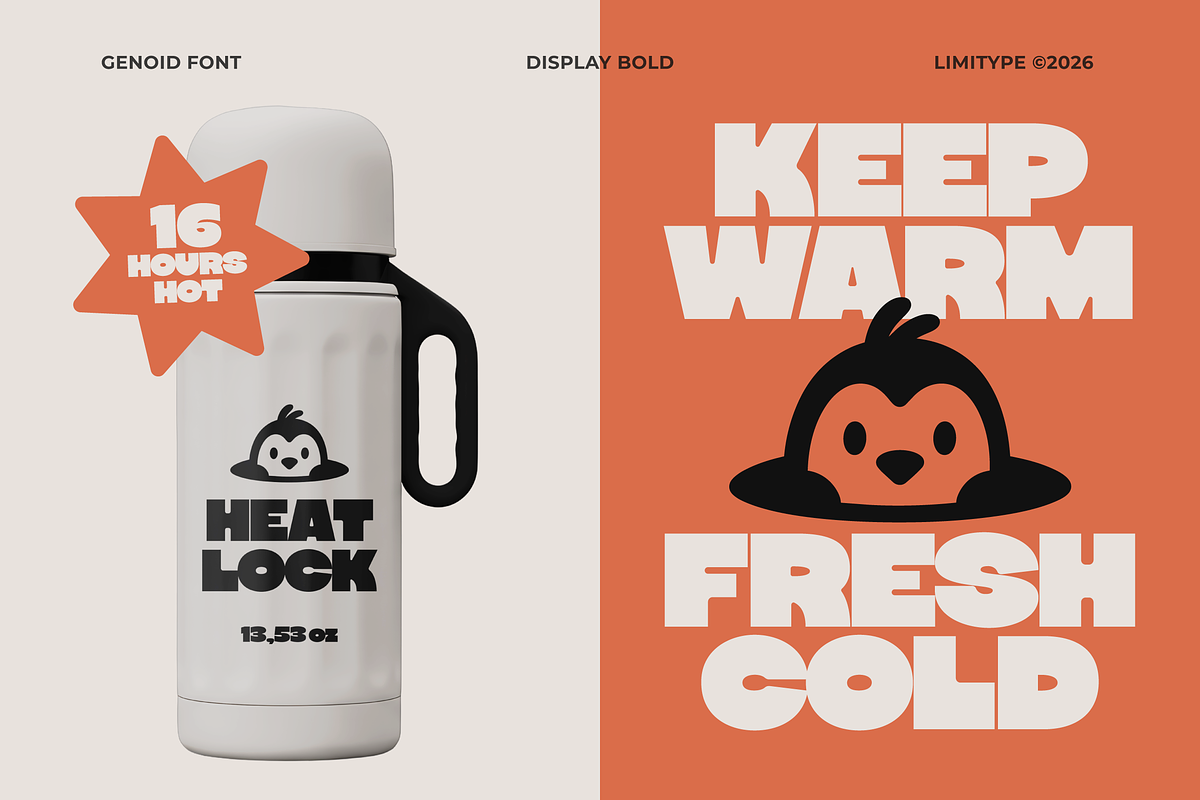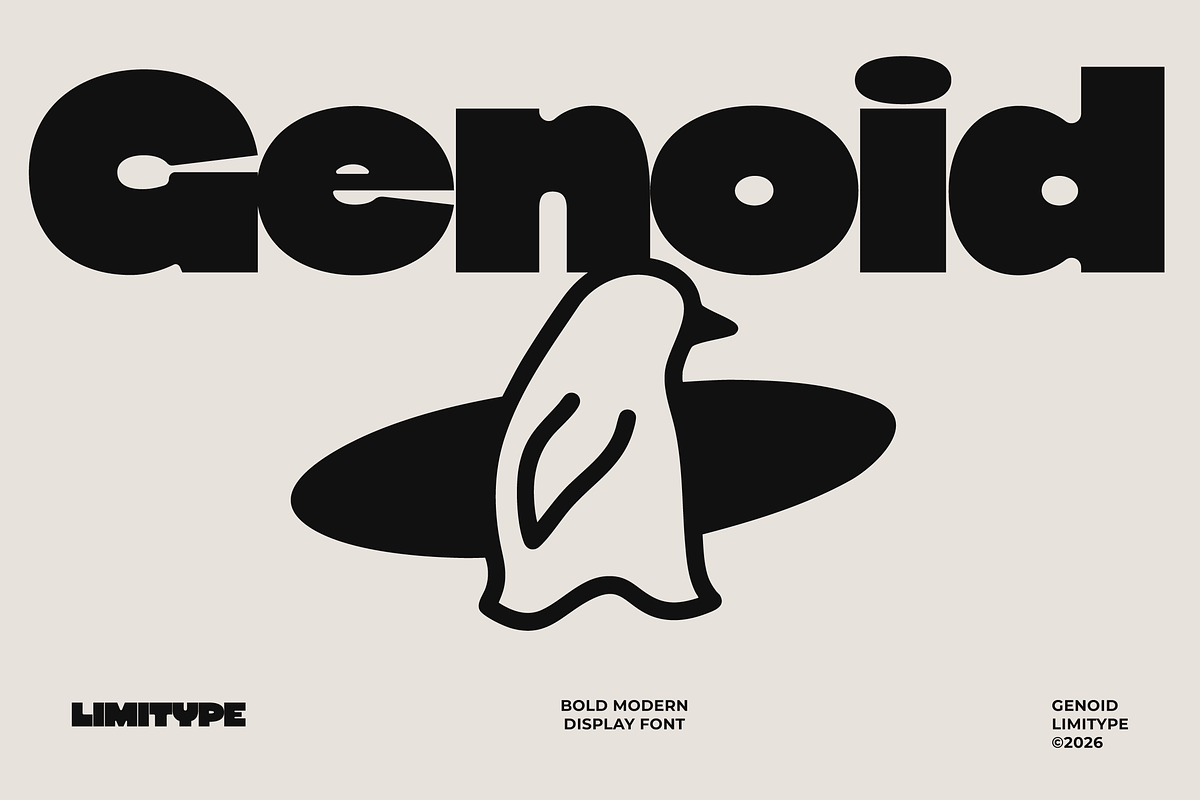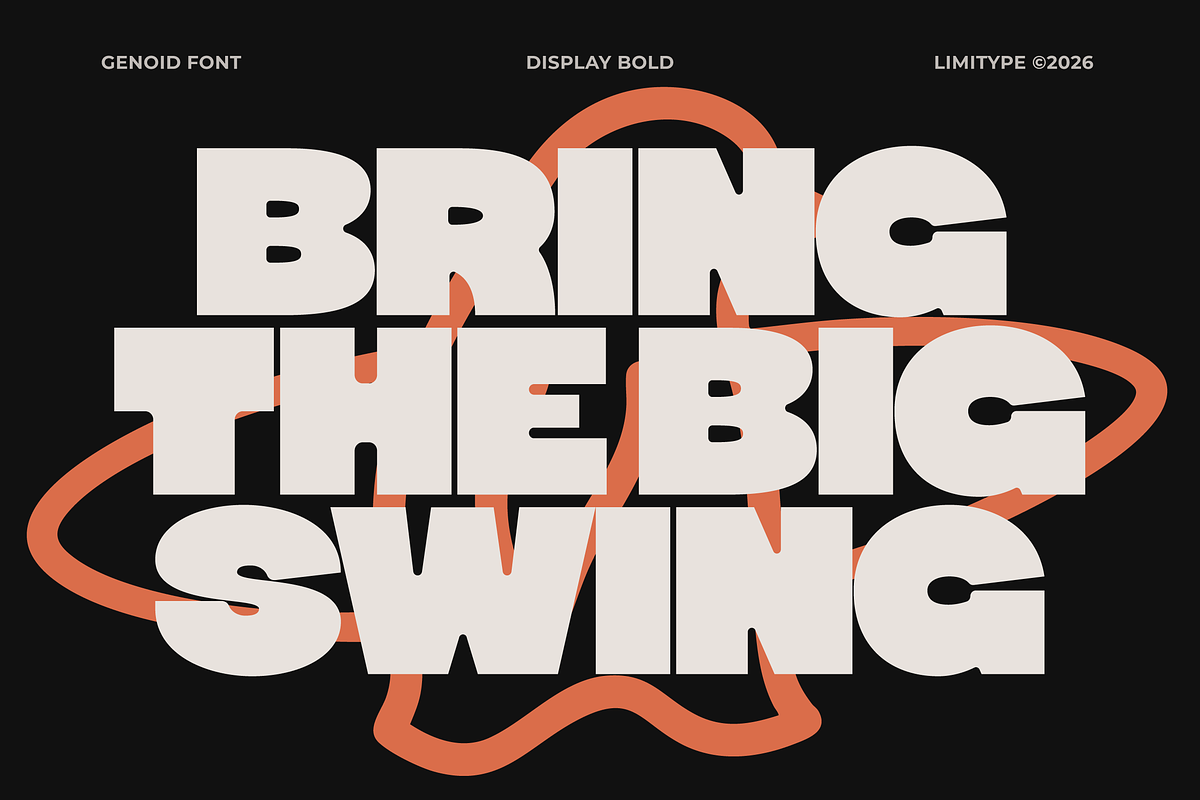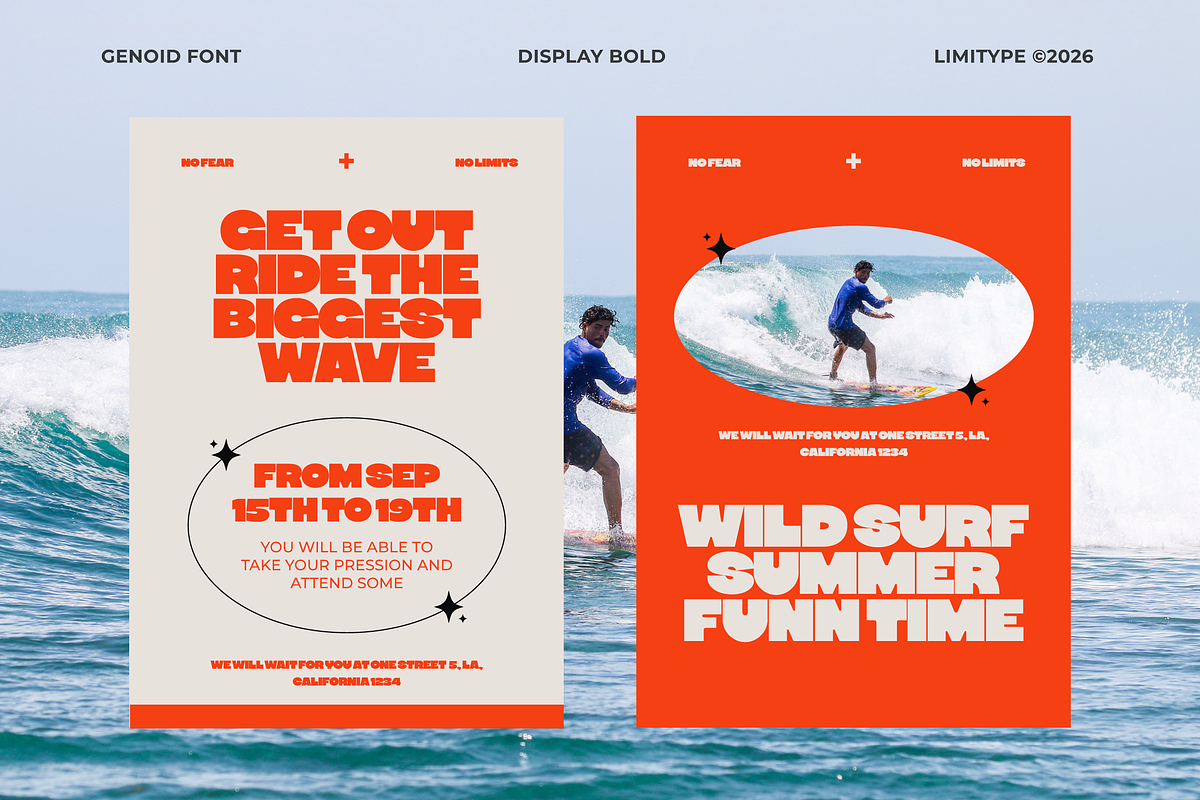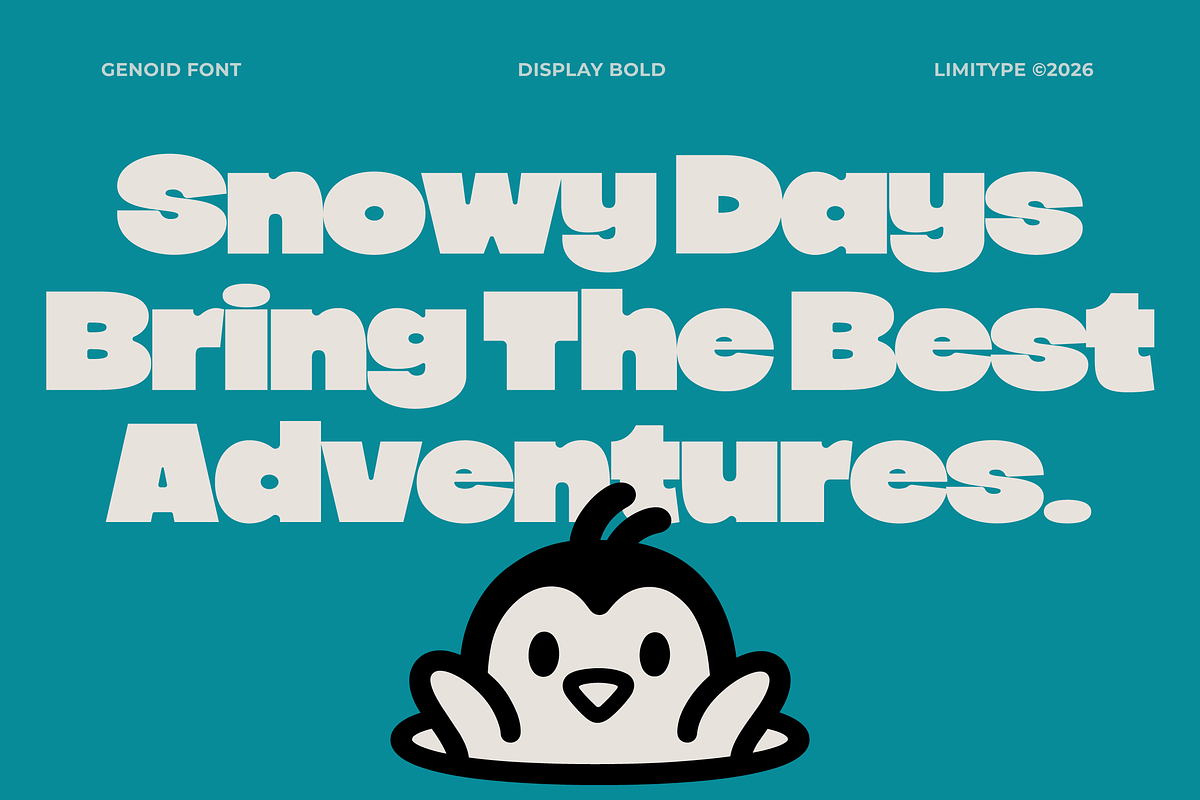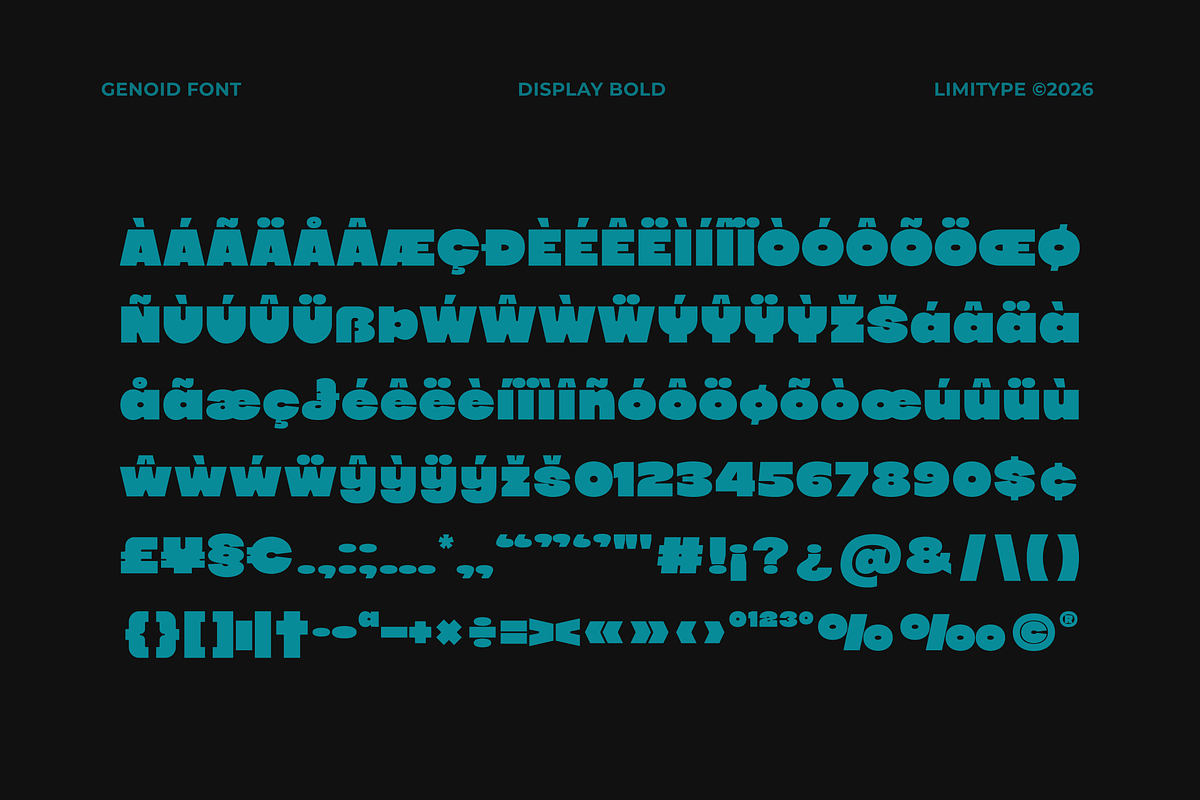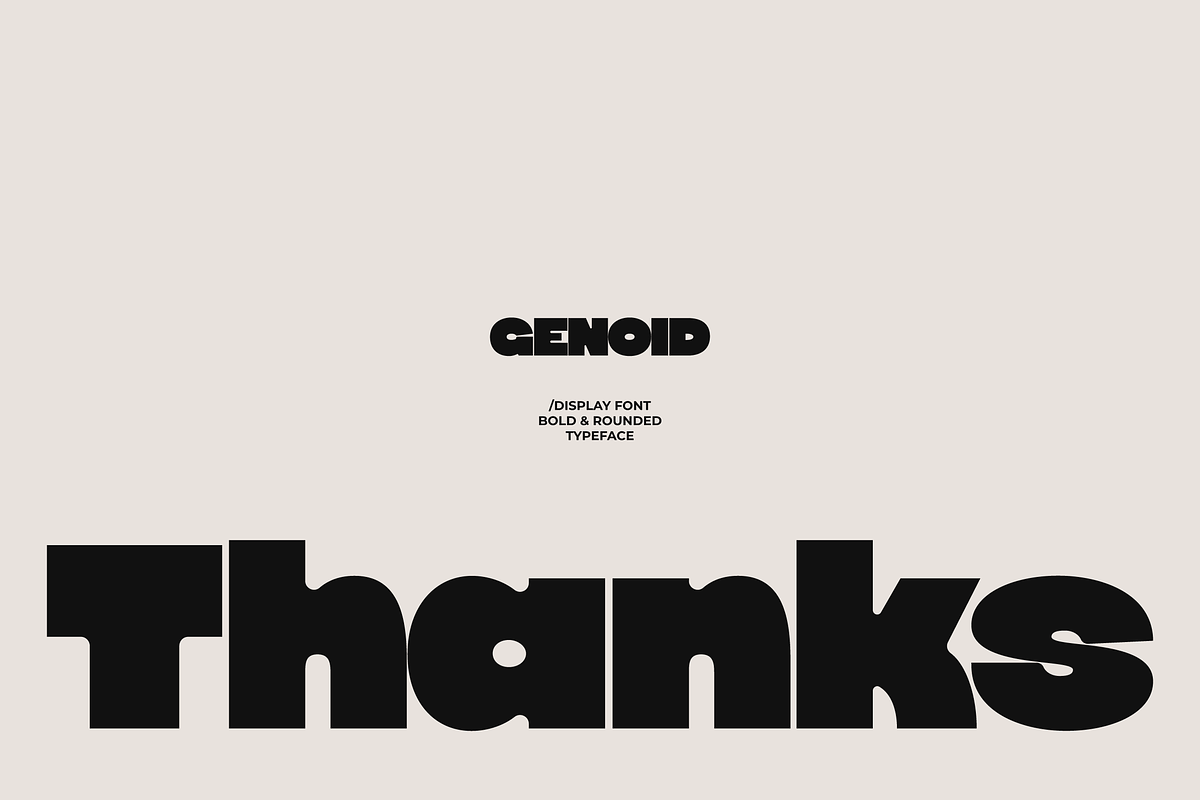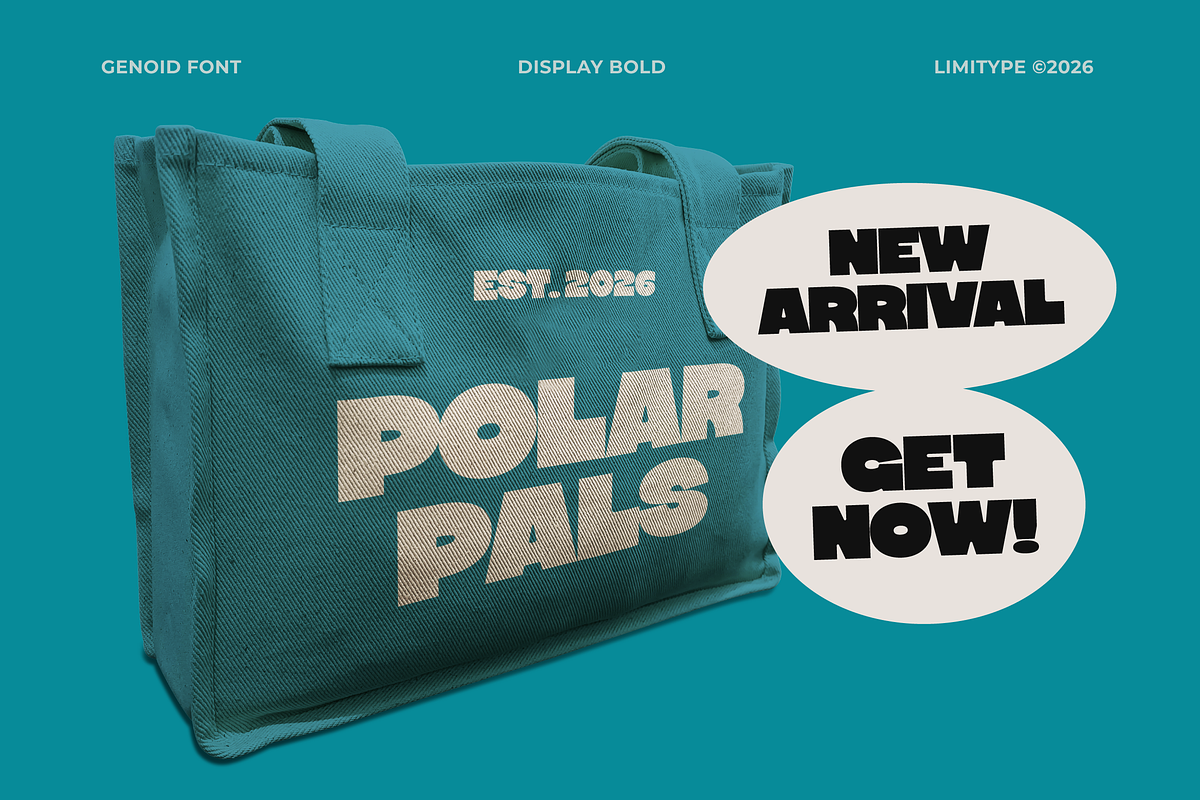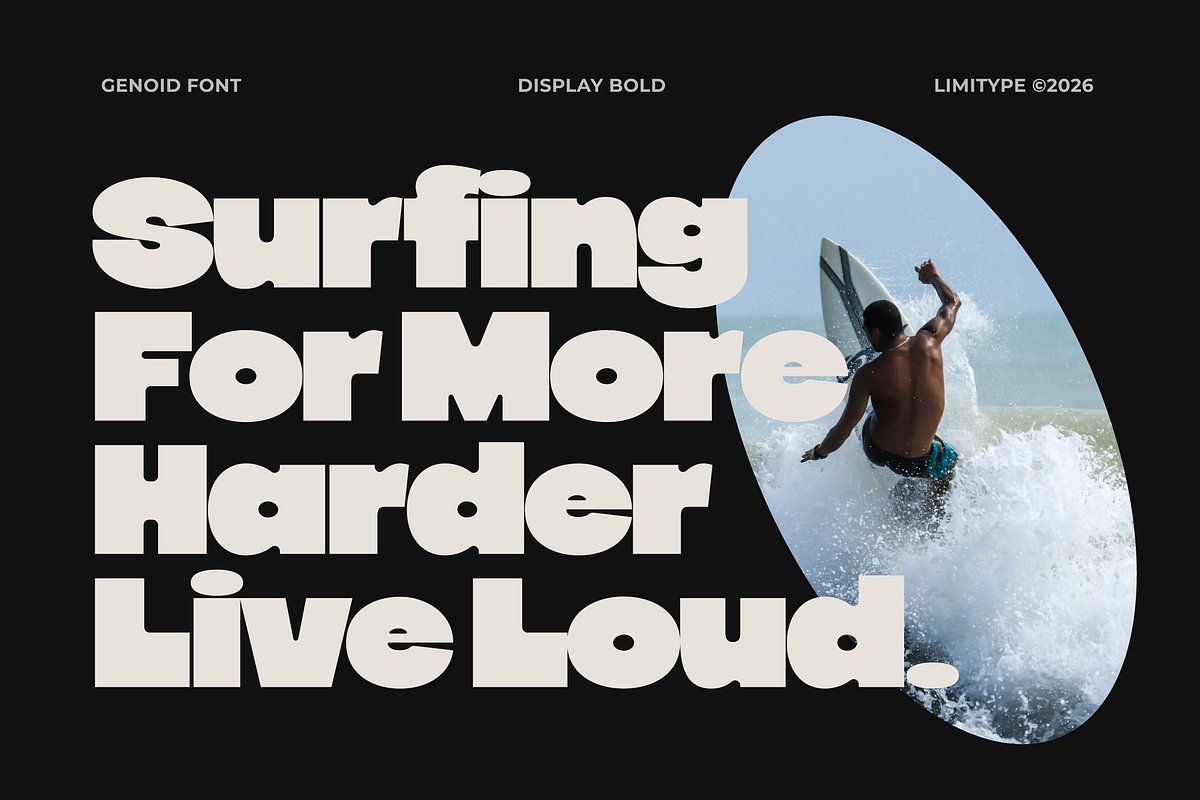
Genoid - Bold Display Font
Genoid is a bold and expressive display font featuring chunky, rounded letterforms with a playful and distinctive character. Its heavy shapes, smooth curves, and unique cut in details on certain parts of the letters create a strong visual personality with a subtle retro inspired feel. Designed to deliver a strong visual impact, Genoid is perfect for headlines, posters, logos, branding, packaging, editorial designs, and various eye catching display applications.
Genoid available with:
Lowercase
Number
Symbol